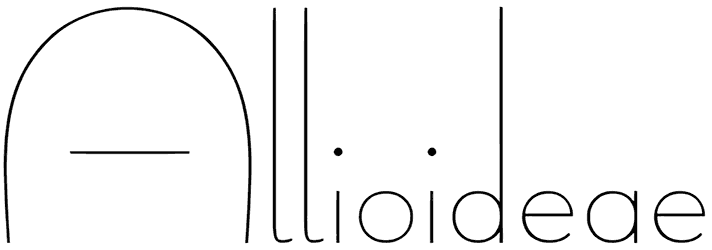
Allioideae Font
Allioideae is a magicalf font that comes with accurate curves and well-rounded characters, thus conveying a sense of softness, delicacy, genius, and dynamic to the audience.
Since its letters are too much thin, you can strongly impress the viewers even at the first glance and engage them with your graphic content including digital banners, wood engraving, product packaging, and social media posts. Considering all its advantages, this fancy font doesn’t support number 4, which won’t be a serious problem.